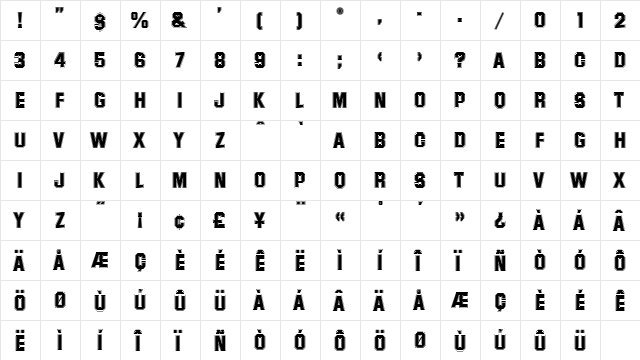
Superstar Regular
Design Context for Superstar Typeface
Superstar is a composed and adaptable typeface that performs quietly and consistently across a wide range of design contexts.